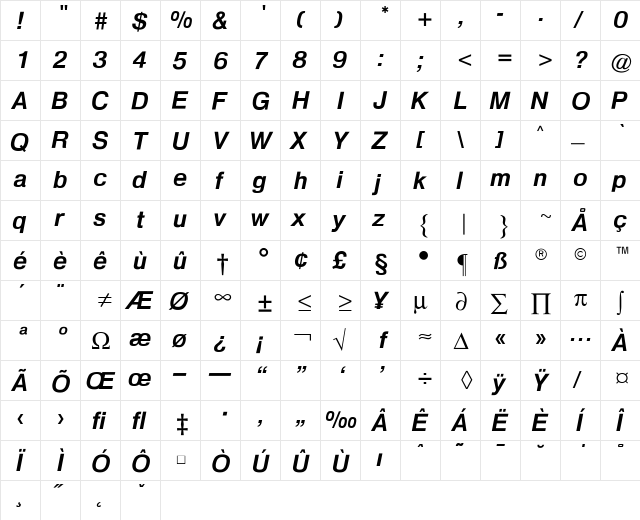
CgHeldustryDmIt Regular
Design Context for CgHeldustryDmIt Typeface
CgHeldustryDmIt takes a measured approach to typography — its balanced proportions and neutral character make it a reliable workhorse for both digital and print work.